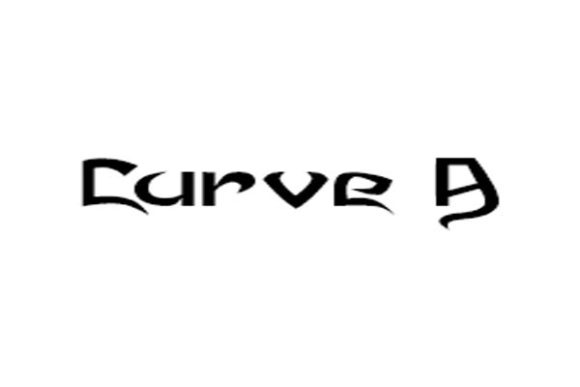
In a world saturated with monotony, Curve A Font emerges as a captivating beacon of creativity, beckoning you to embrace your individuality and make a statement like never before. Designed with meticulous attention to detail by the visionary John Pittman, this display font is not merely a collection of letters; it's an artistic symphony that dances across your designs with grace and allure.
Curve A Font's essence lies in its playful and whimsical nature, meticulously crafted to evoke a sense of joy and wonder. Its geometric structure, reminiscent of a playful dance between angles and curves, lends itself seamlessly to a myriad of branding projects. Envision your logos radiating with a unique charm, your t-shirts adorned with eye-catching designs, and your creative products infused with a touch of delightful whimsy.